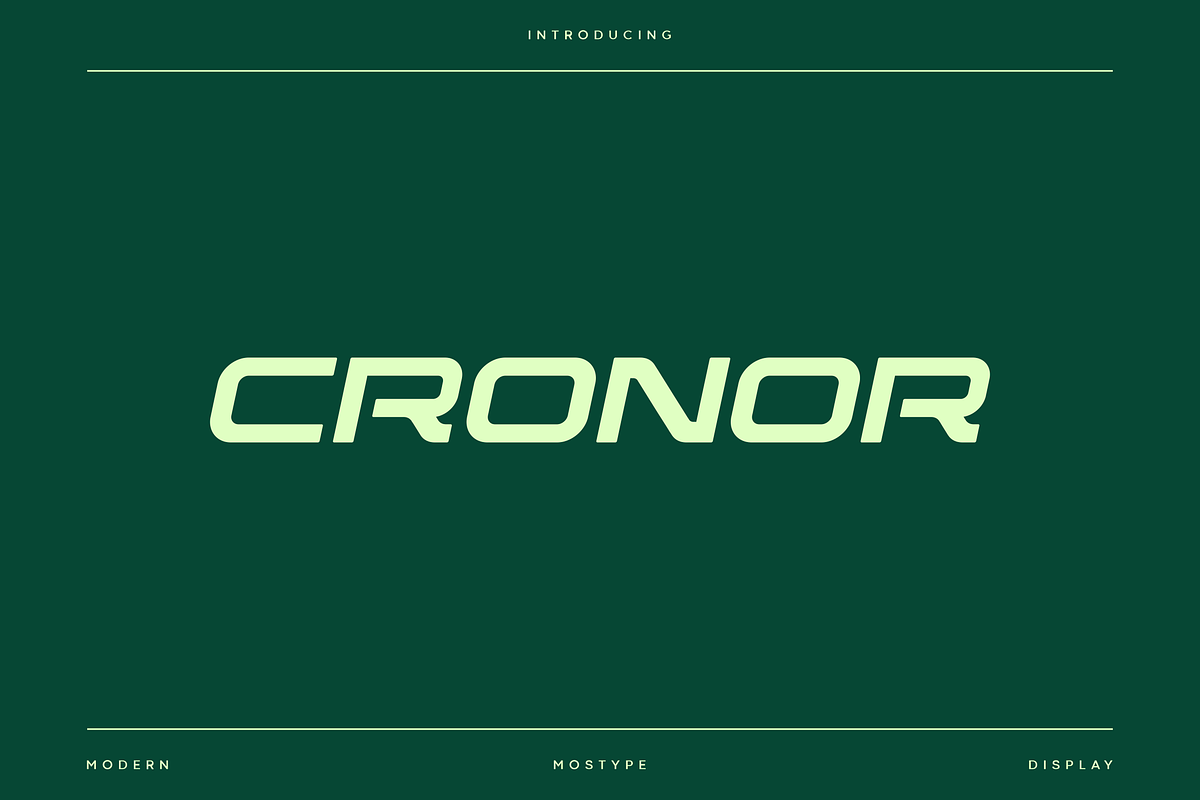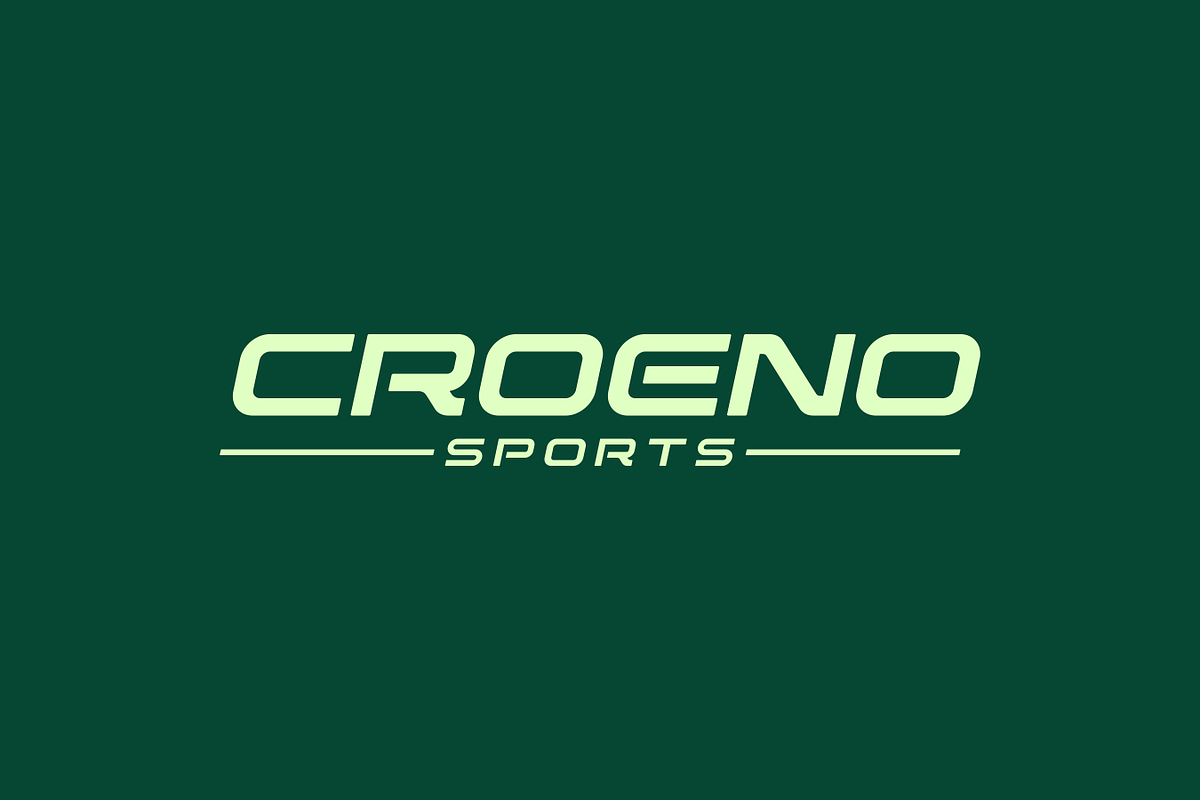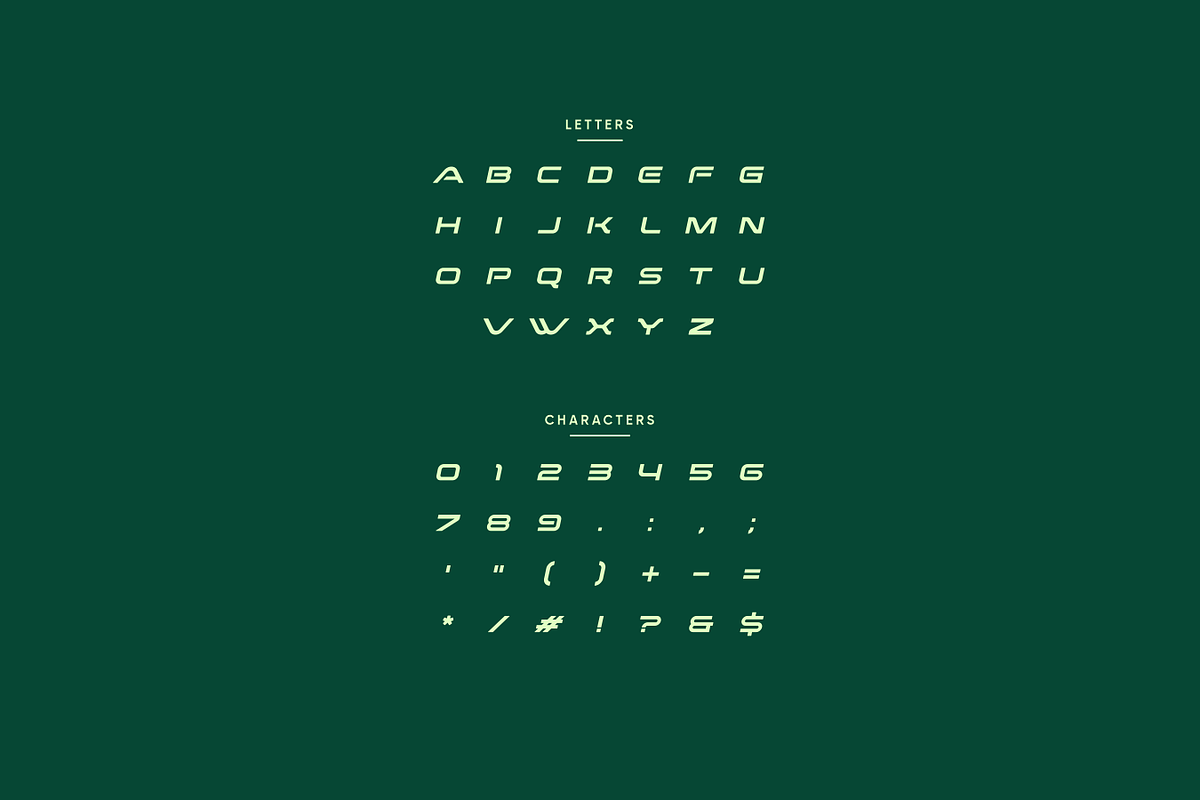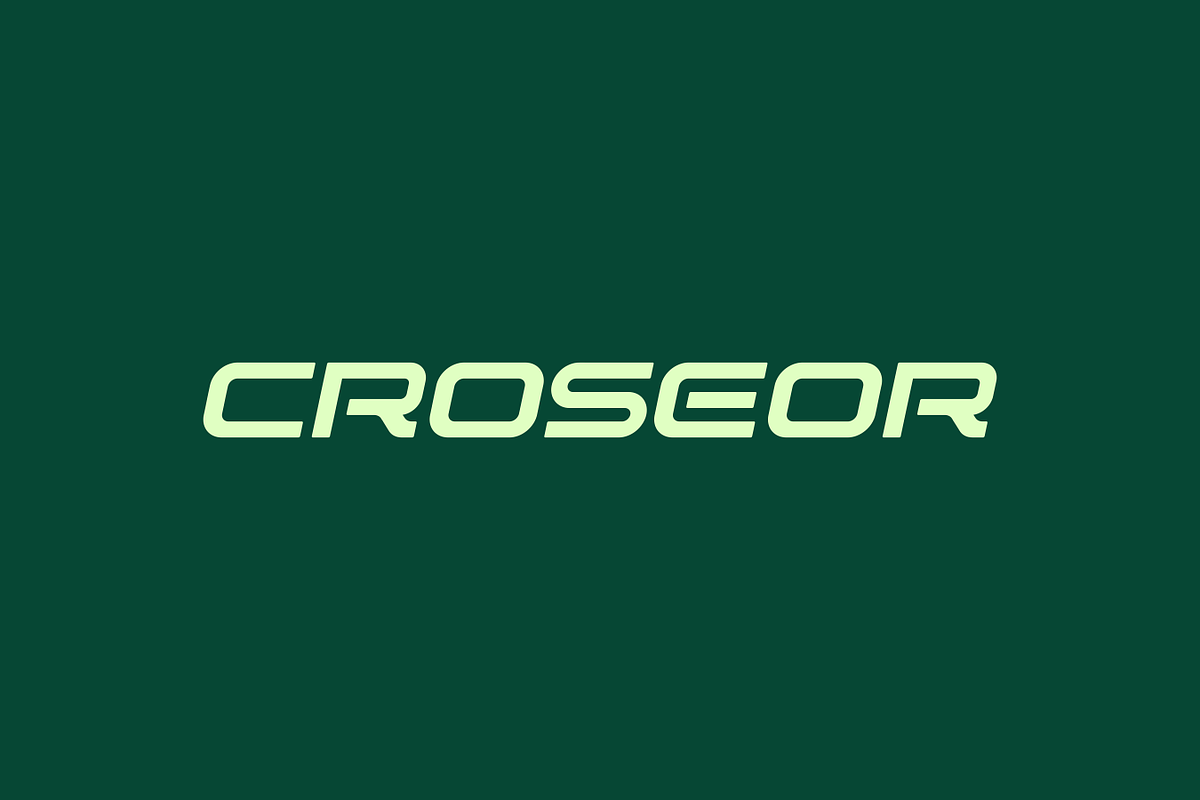
Cronor - Modern Sport Typeface
Cronor is a modern display font built specifically for sports branding, headline, and more prominent typography needs. This font comes with a new and fresh all-caps style, it will make your design more memorable, it’s perfect for adding this font to sports, tech, action and future themes. Cronor was created for bold action style and a modern feel, so enjoy creating any project that will showcase your main ideas.